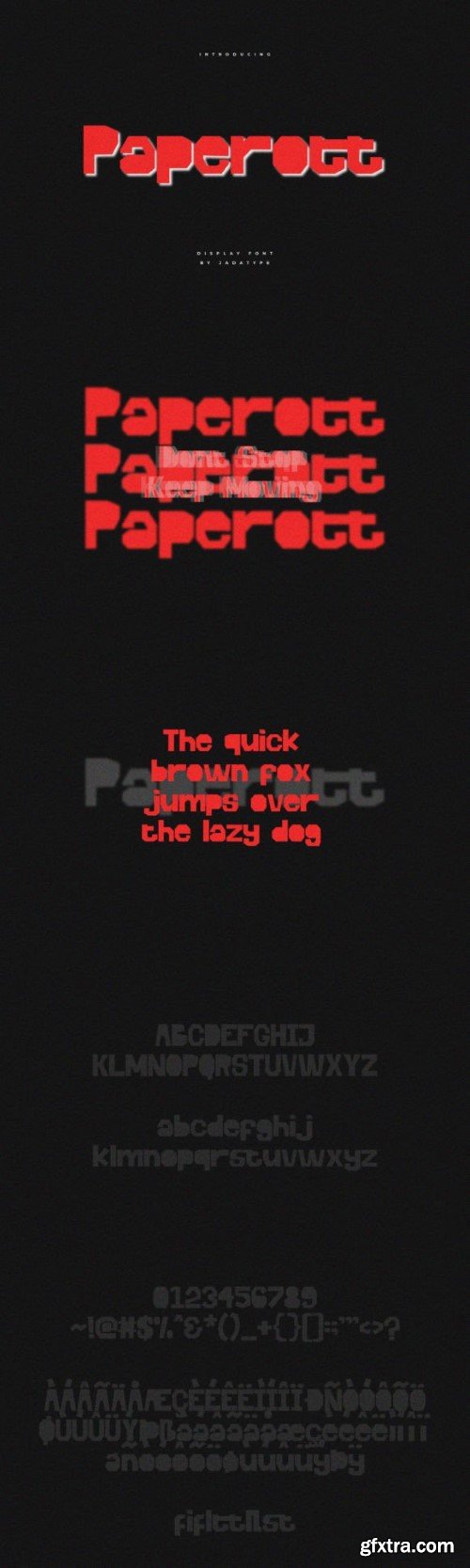
Paperott Font
Paperott is a display font that comes with a paper-cut style. It's suitable for posters, t-shirts, branding, social media, and so on. Add this beautiful display font to each of your creative ideas, and notice how it makes them stand out!